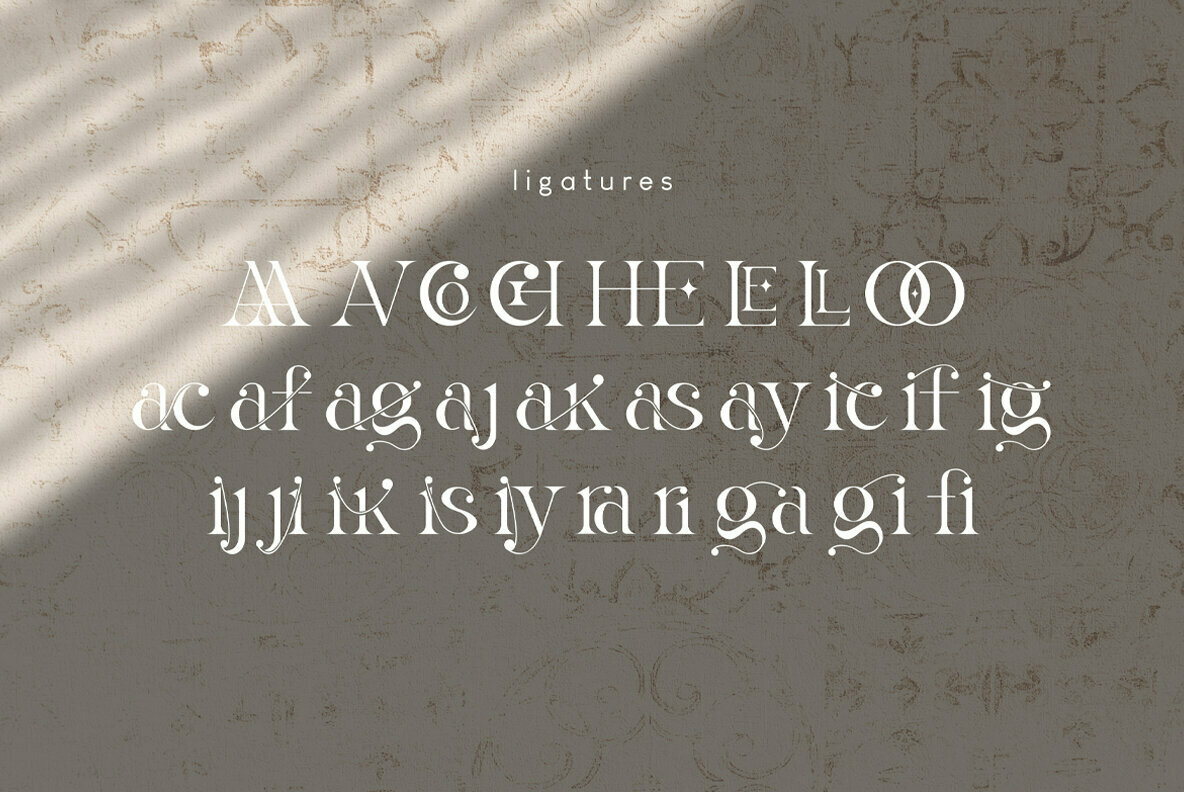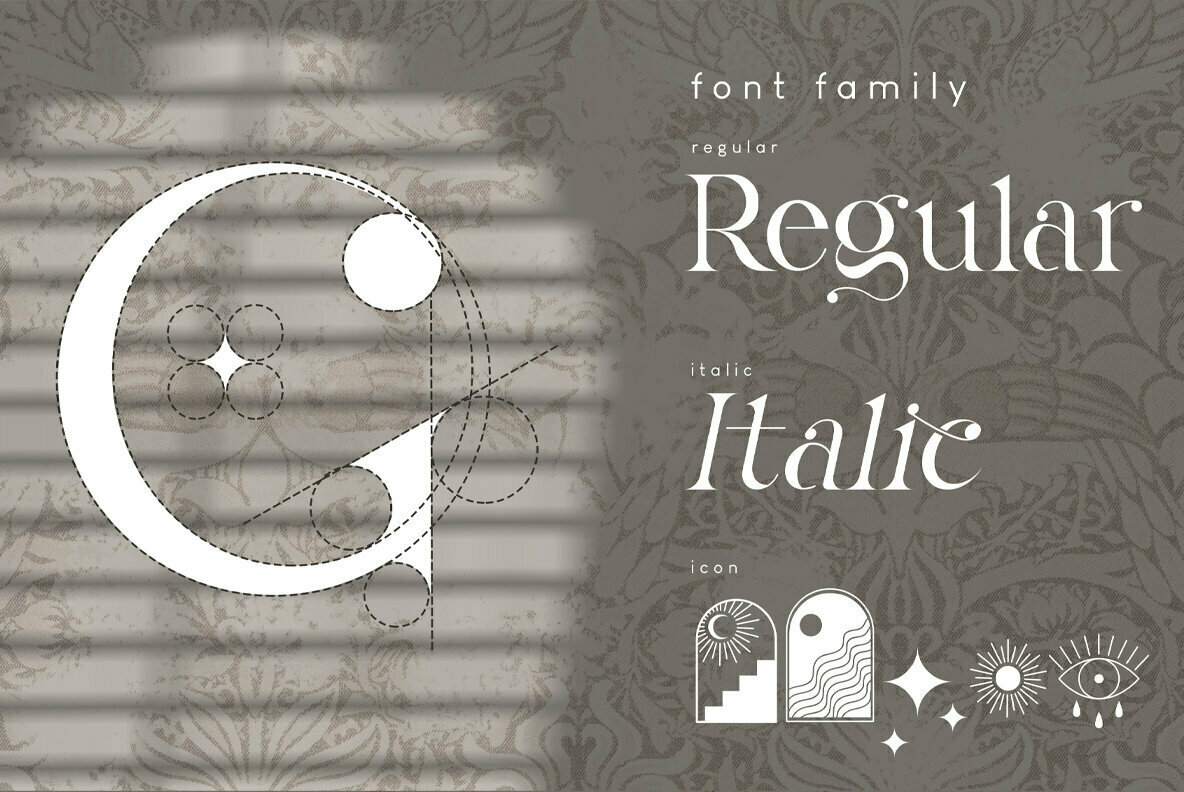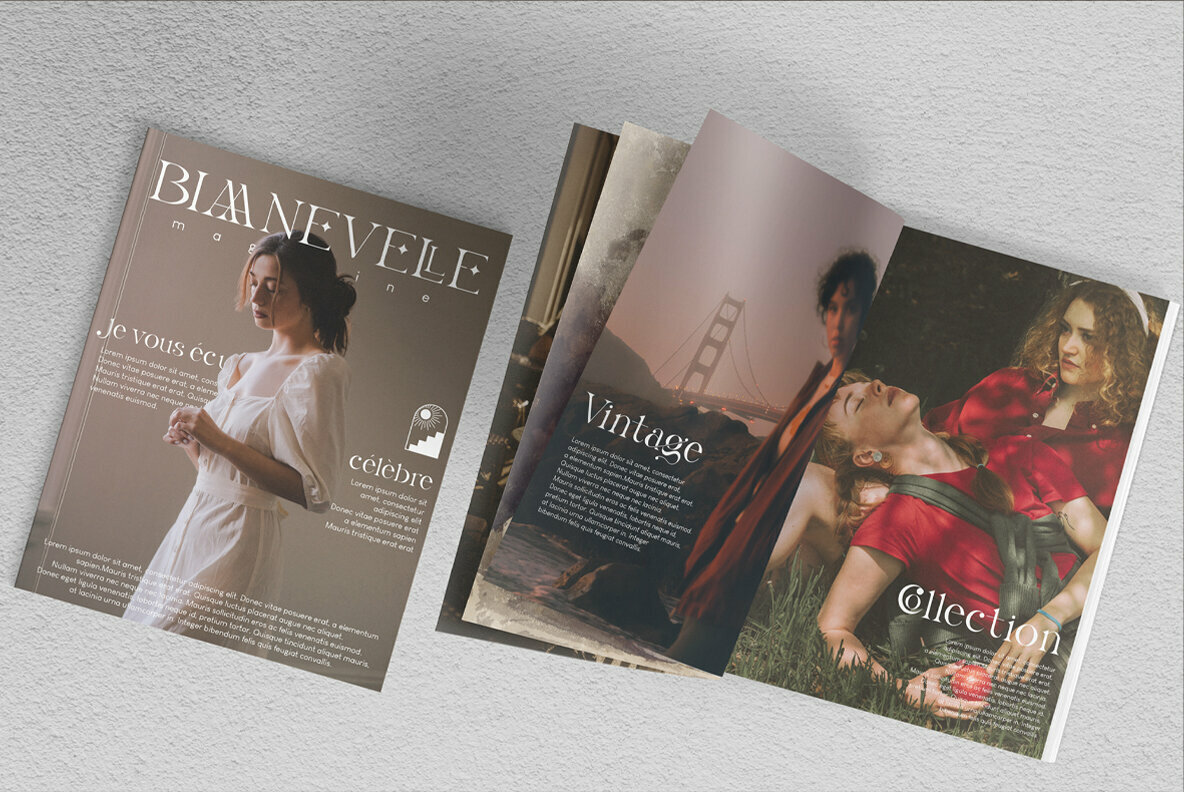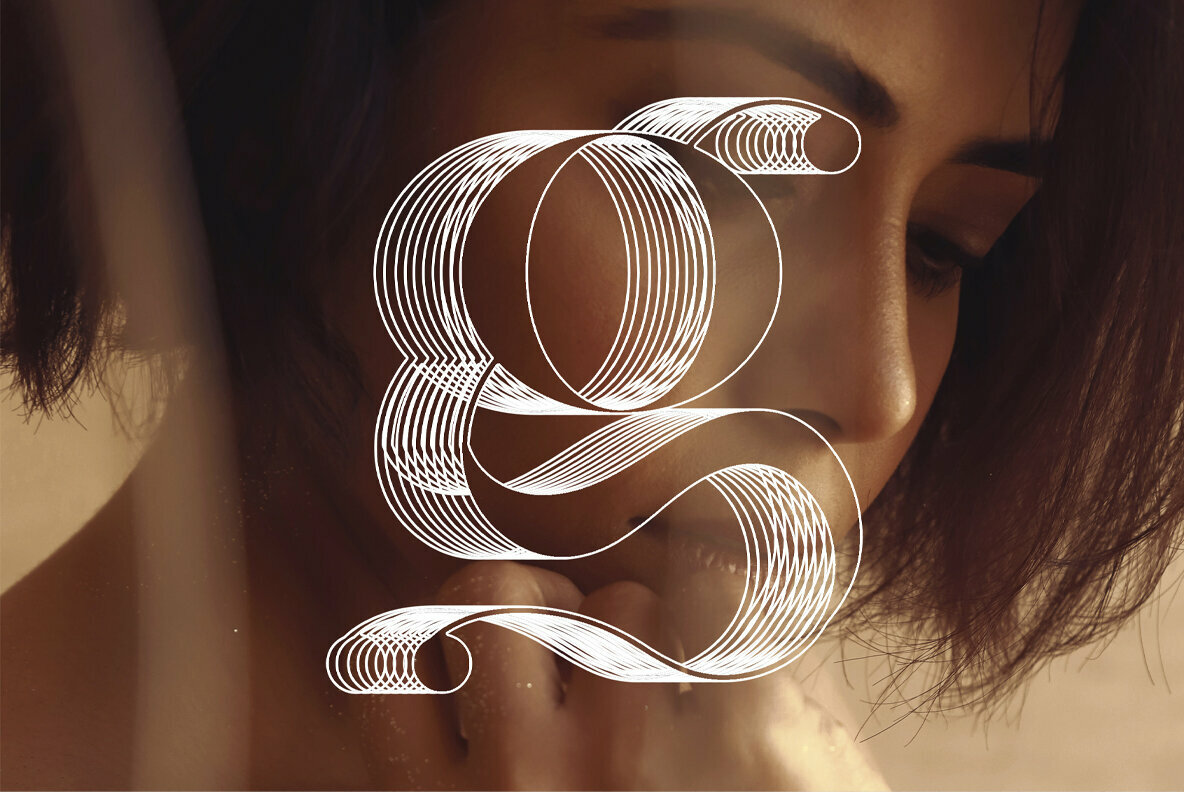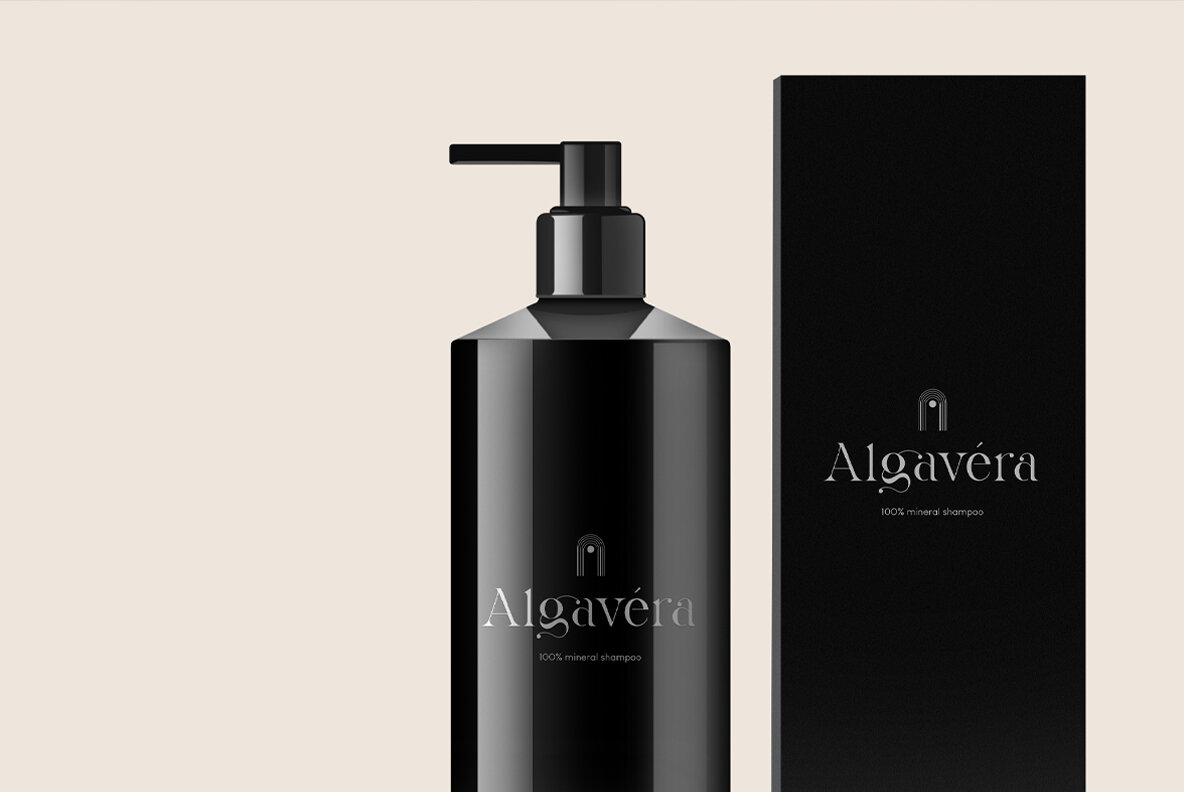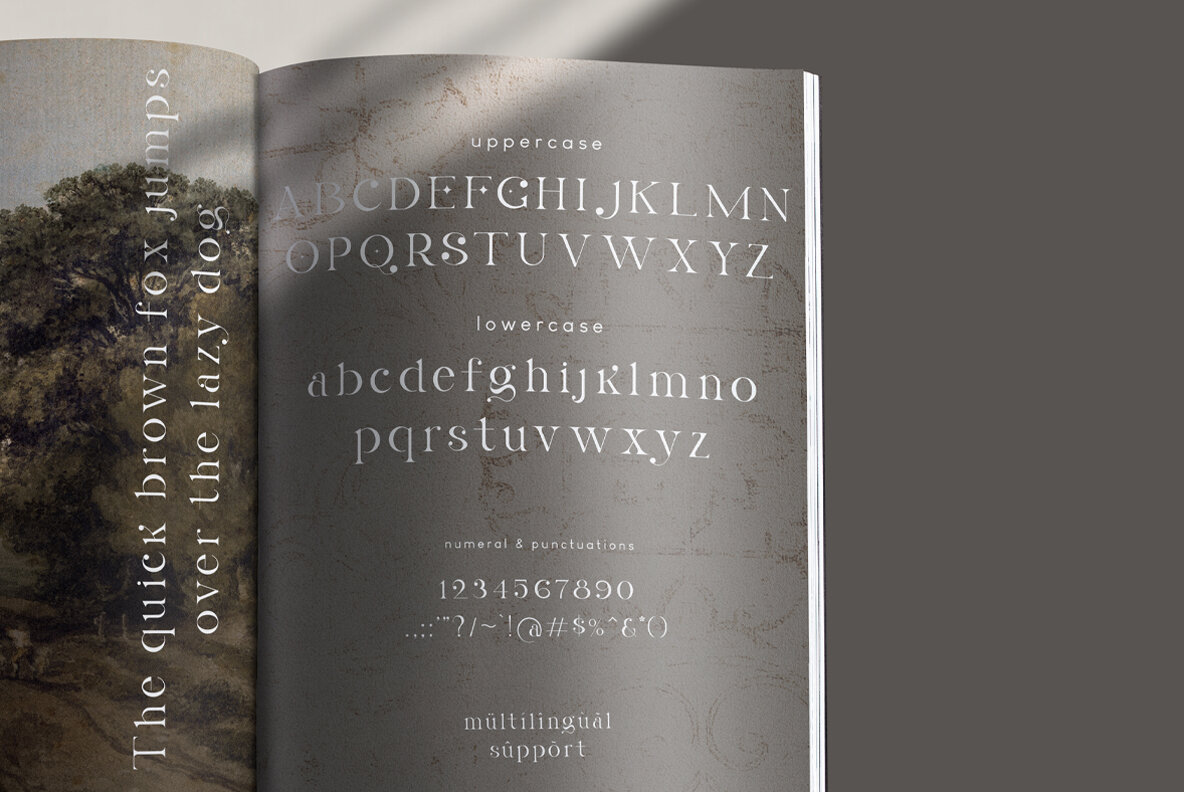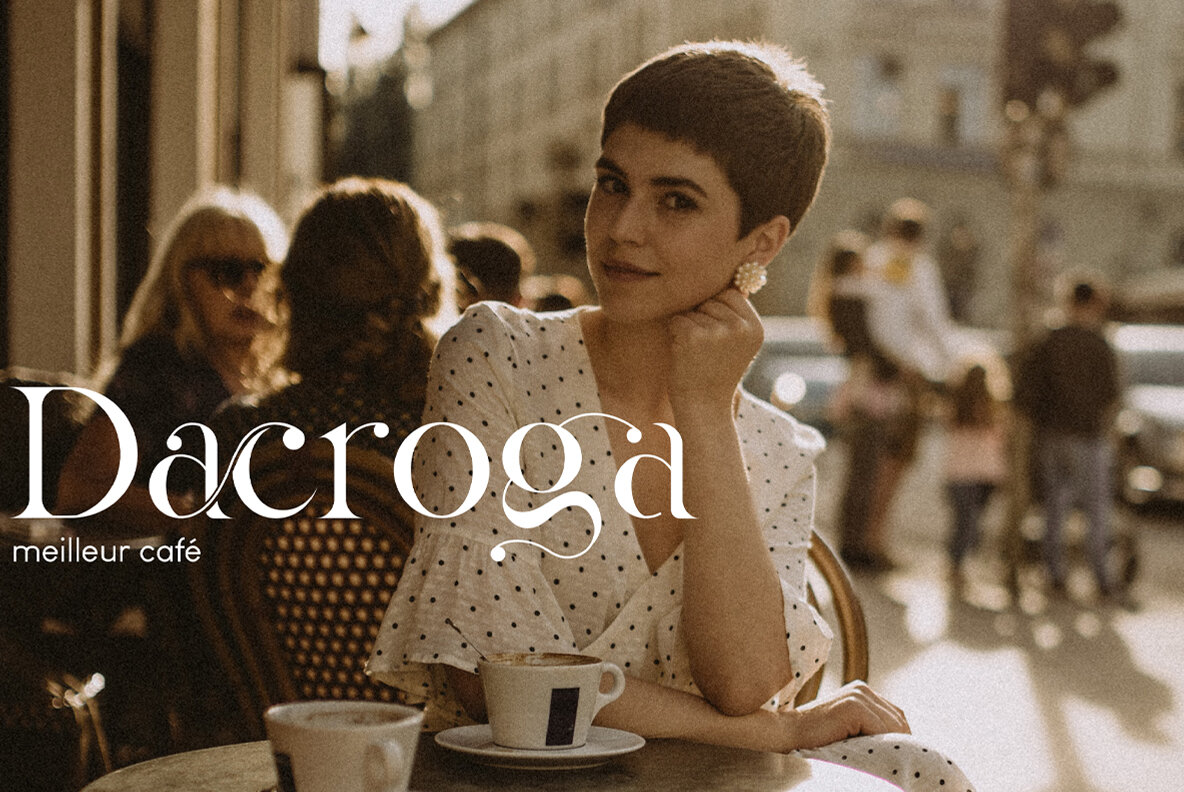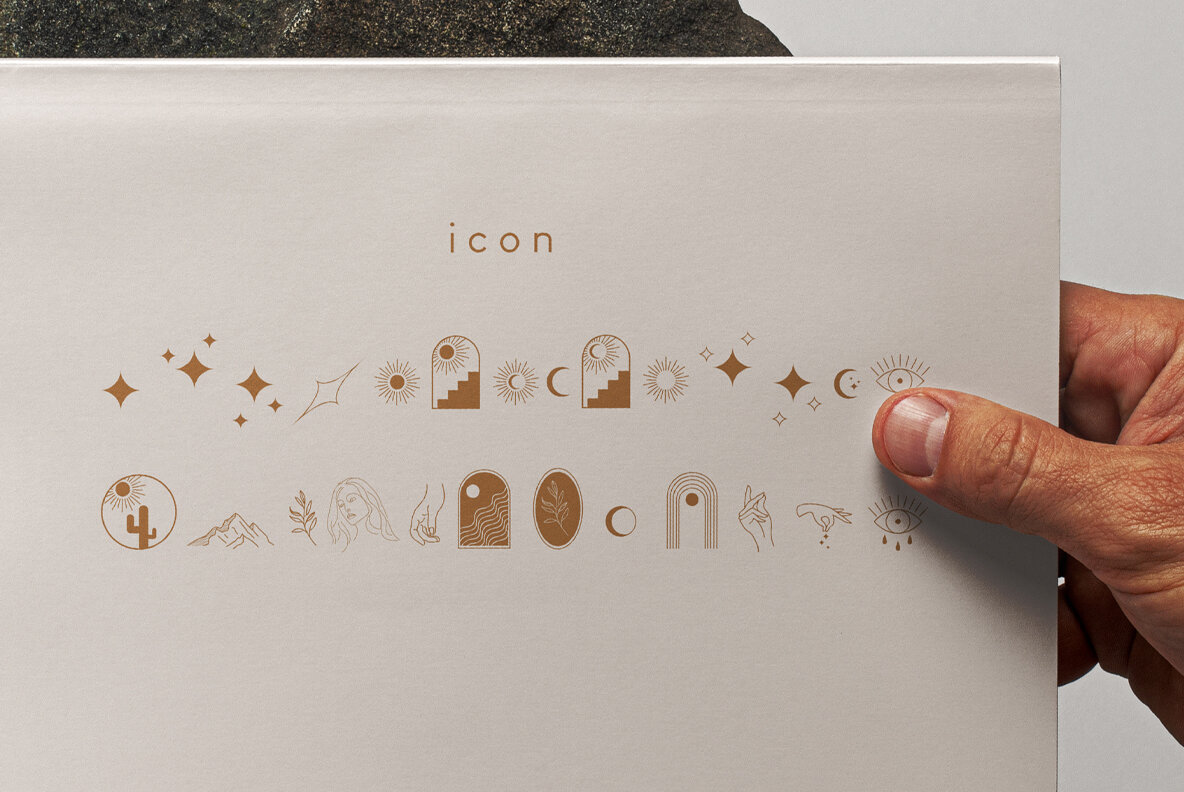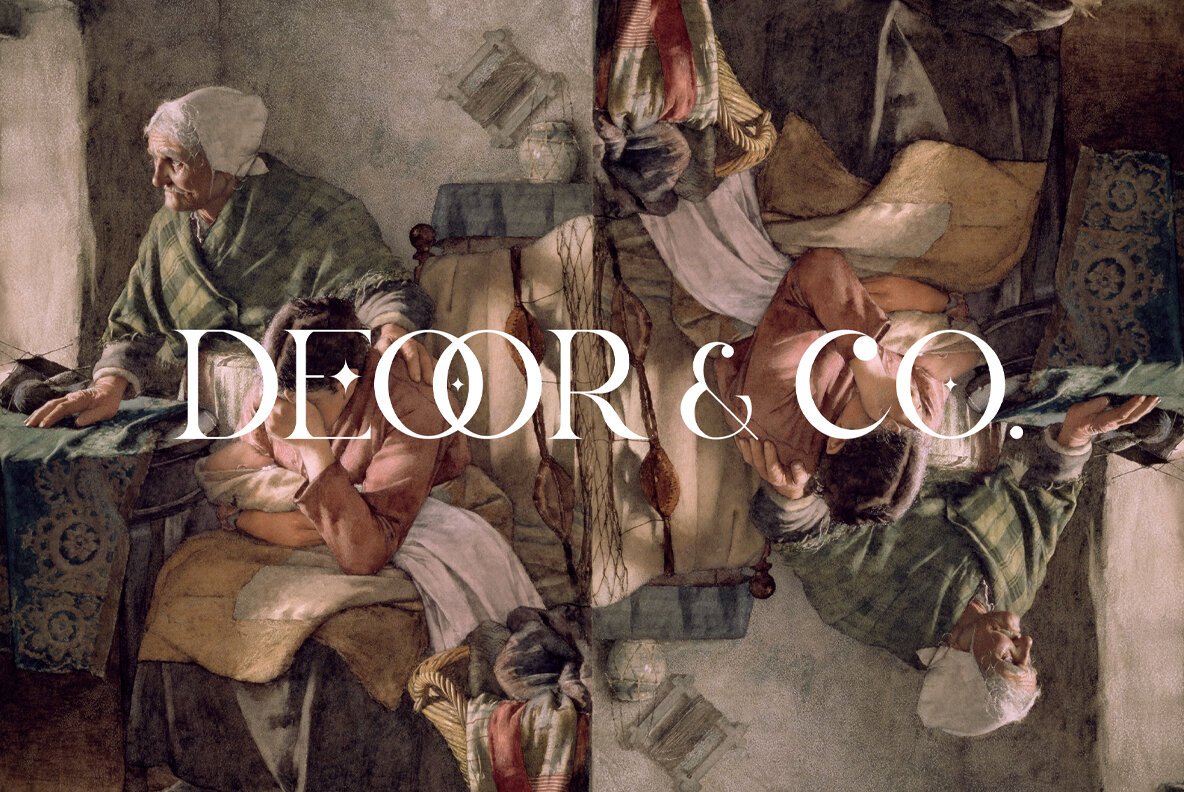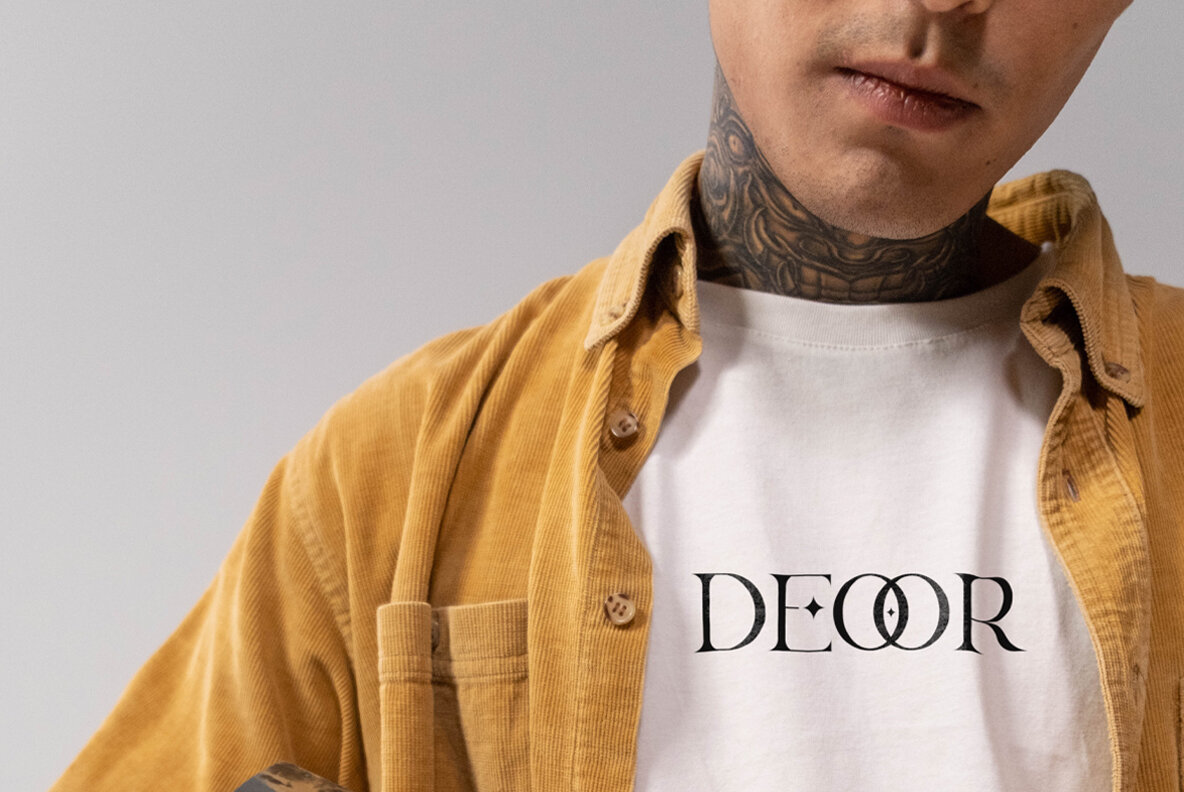
La Obrige Font
La Obrige is serif typeface that inspired by the beauty, aesthetic, elegant and Paris. It is really good for water mark, logotype, advertisement, social media posts, product packaging, and more.
complete with
- ligatures
- regular
- italic
- icon
- kerning
- multilingual support